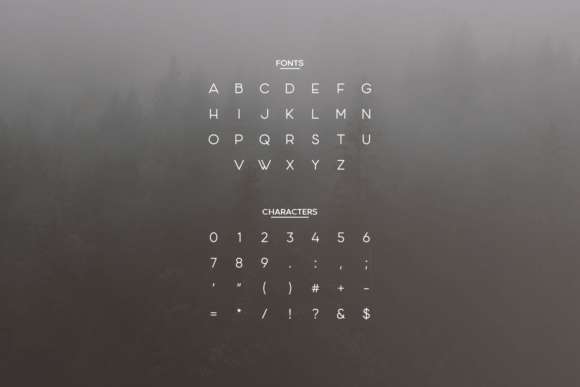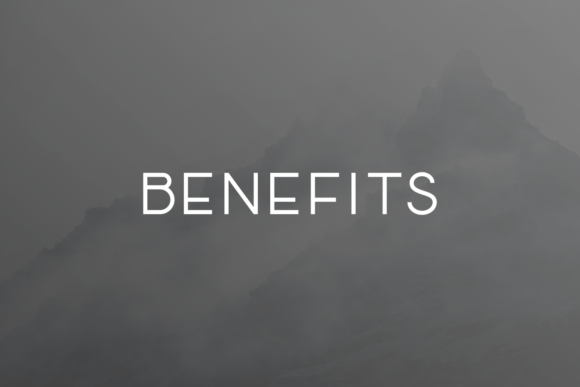
Hopbred Font
Hopbred is a modern and stylish sans serif font. This font would be ideal for web design, business cards, or just about anything else that requires a unique touch.